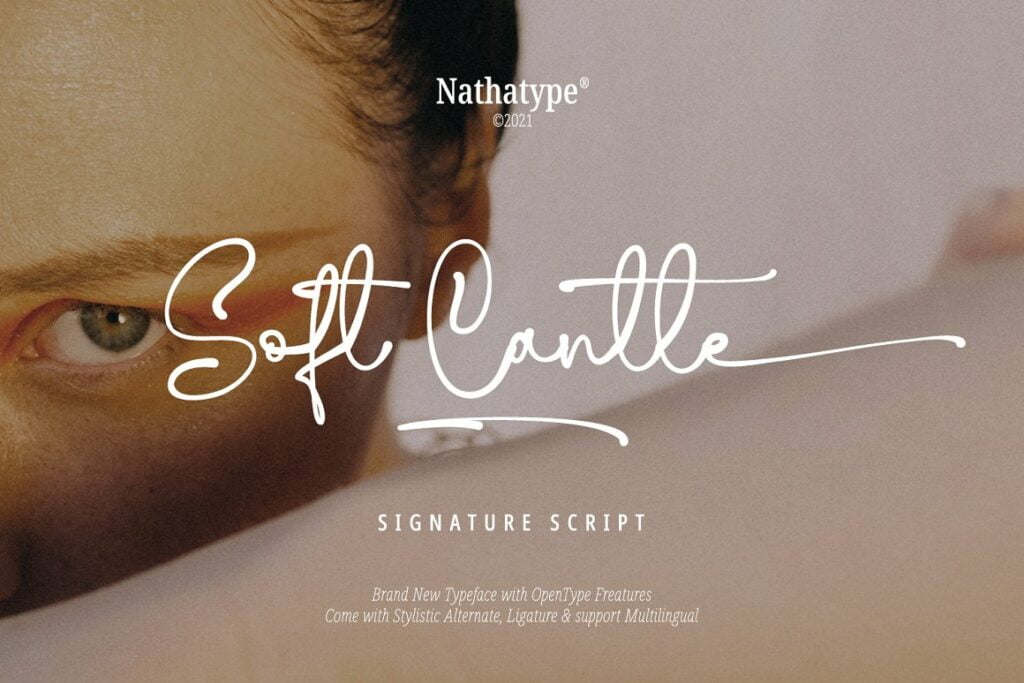
Soft Cantle Font
Soft Cantle Signature Font is a handcrafted handwritten script font designed to bring your branding to life and add a touch of elegance, modernity and style. Perfect for social media branding projects, fashion designs, printed quotes, packaging, or even as a stylish text overlay to any background image.